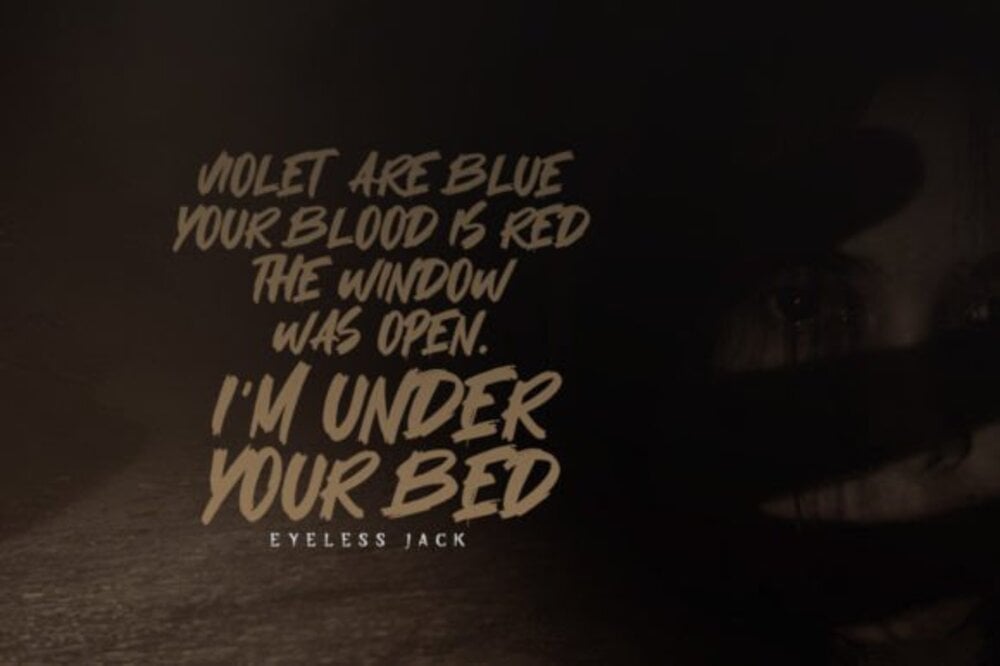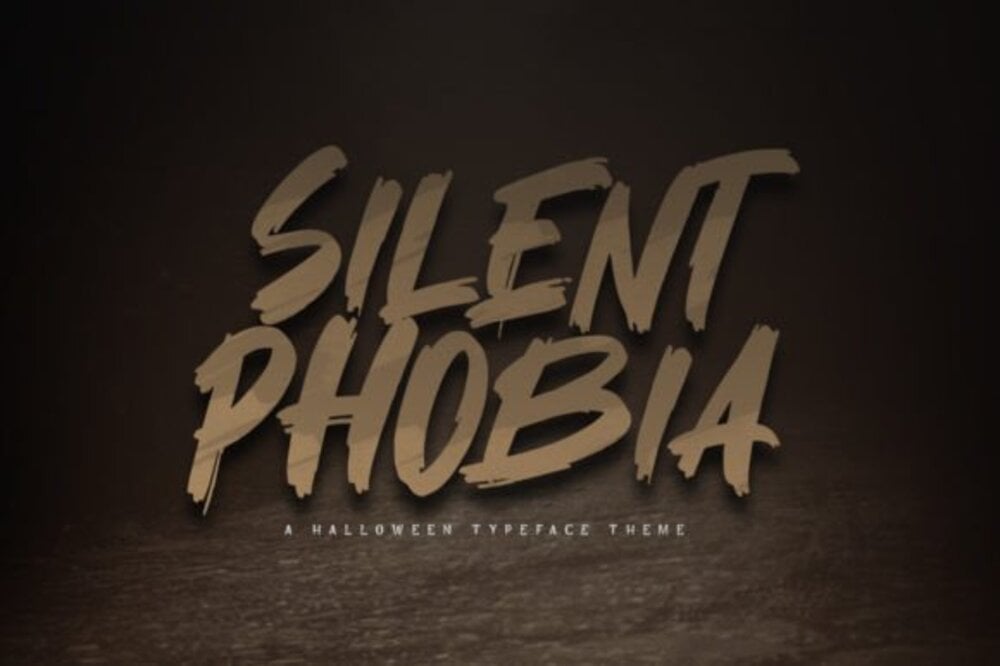
Silent Phobia Font
Silent Phobia font is a haunting and dramatic typeface that exudes mystery and suspense. With sharp edges, distorted lines, and an eerie, shadowy presence, it’s perfect for horror-themed designs, posters, and book covers. Its unsettling yet captivating style evokes a sense of tension and intrigue, making Silent Phobia ideal for projects that aim to leave a chilling and unforgettable impression.